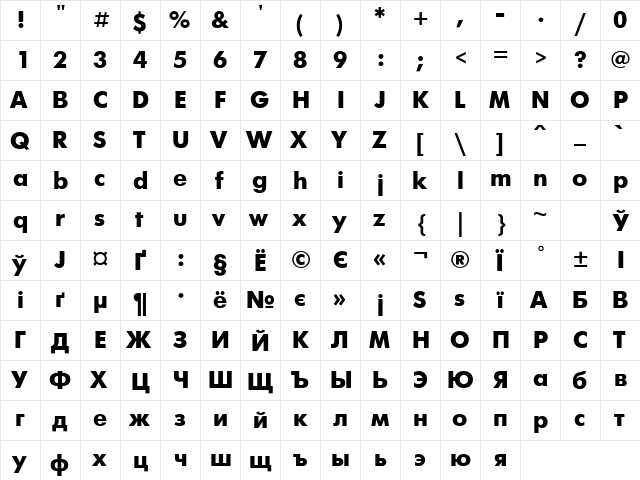
FuturisExtra Regular
Design Context for FuturisExtra Typeface
FuturisExtra channels digital-age aesthetics through its sharp, structured letterforms — ideal for brands that want to signal innovation.
Pro Tip: Try FuturisExtra with generous letter-spacing in UI labels and navigation — the geometric forms benefit from room to breathe.